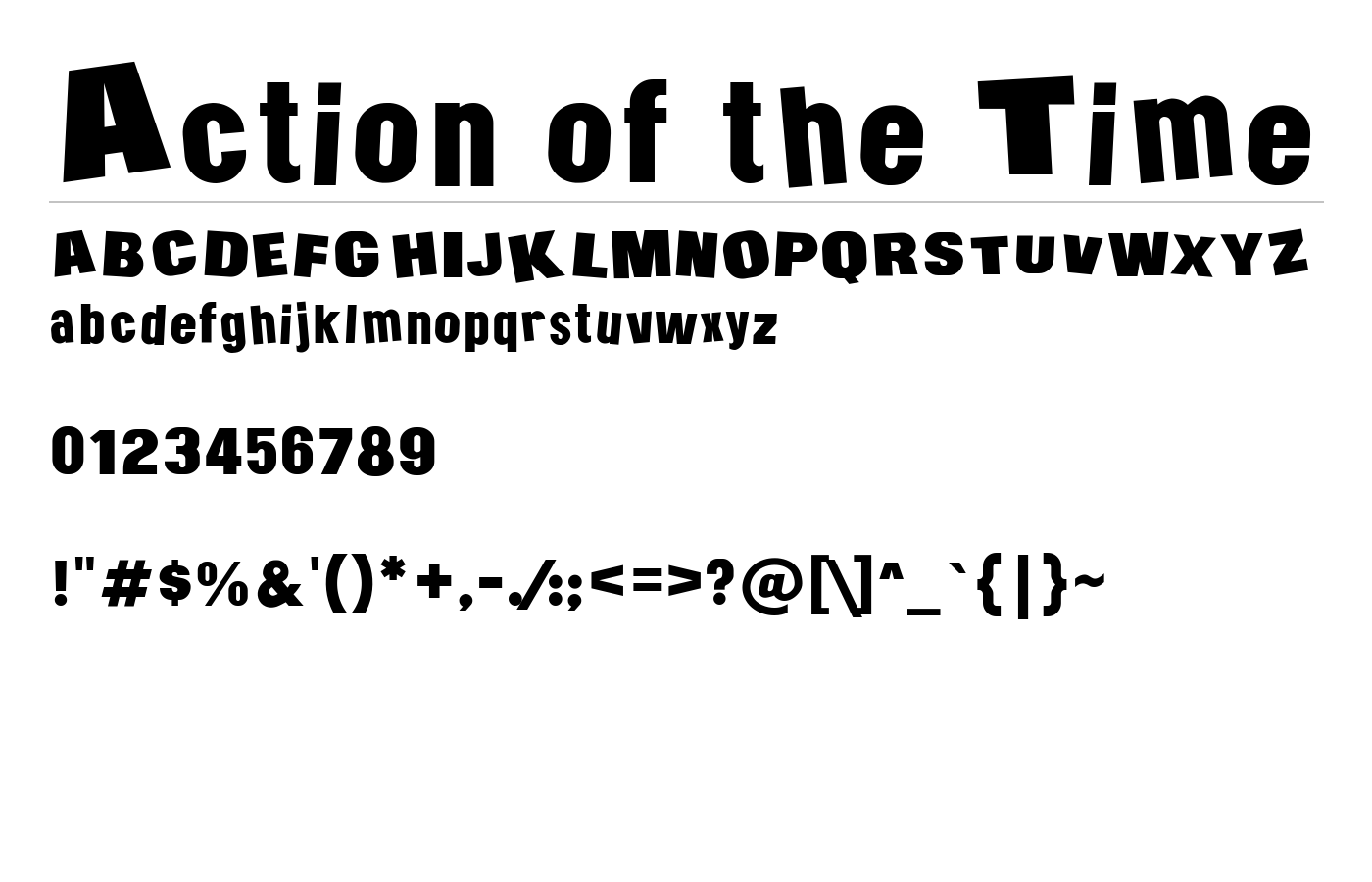
Action of the Time is a bold, playful sans serif font with a slightly condensed width and an energetic, uneven baseline that gives it a lively personality. Its thick strokes, quirky uppercase letter shapes, and tall x-height make it perfect for attention-grabbing headlines and fun branding projects. This font works well in posters, logos, and informal editorial designs where a dynamic and approachable feel is desired.
Action of the Time Font
About Action of the Time Font